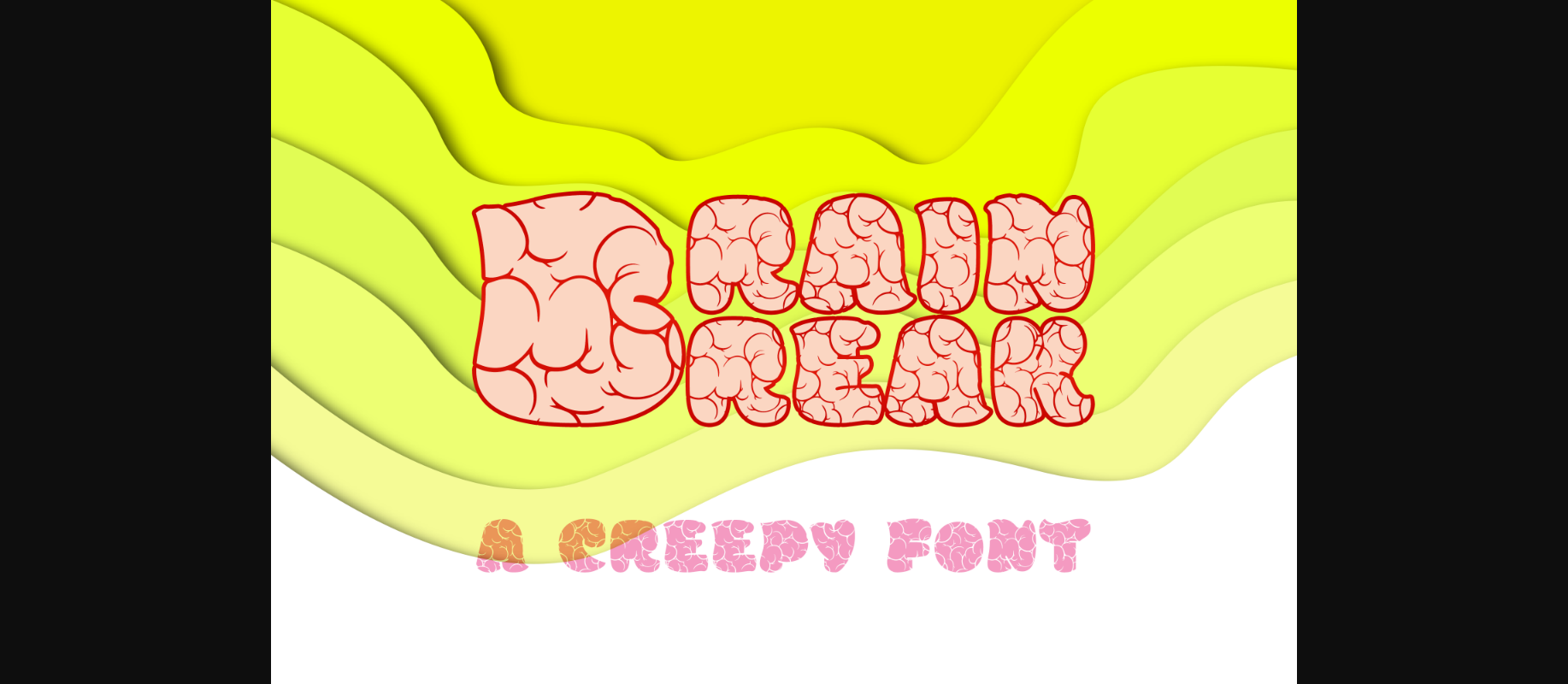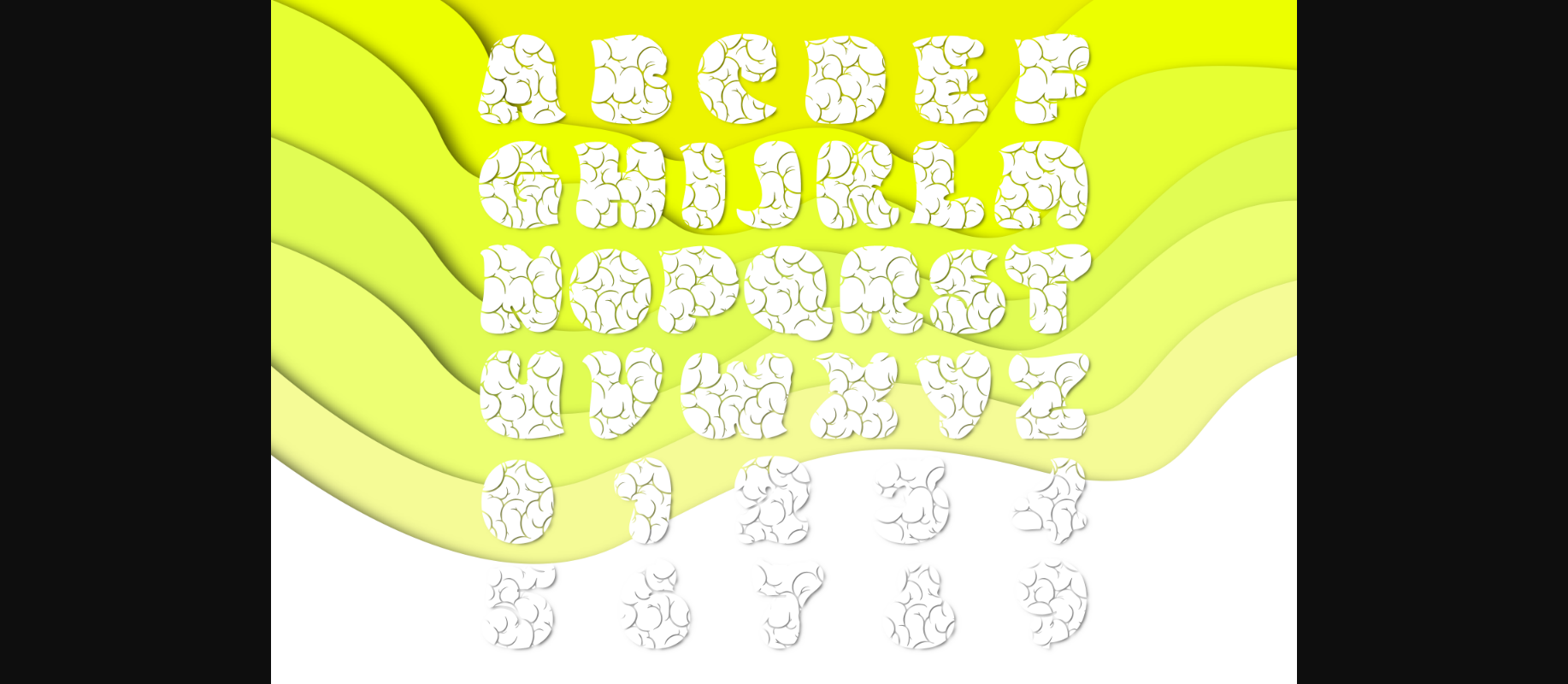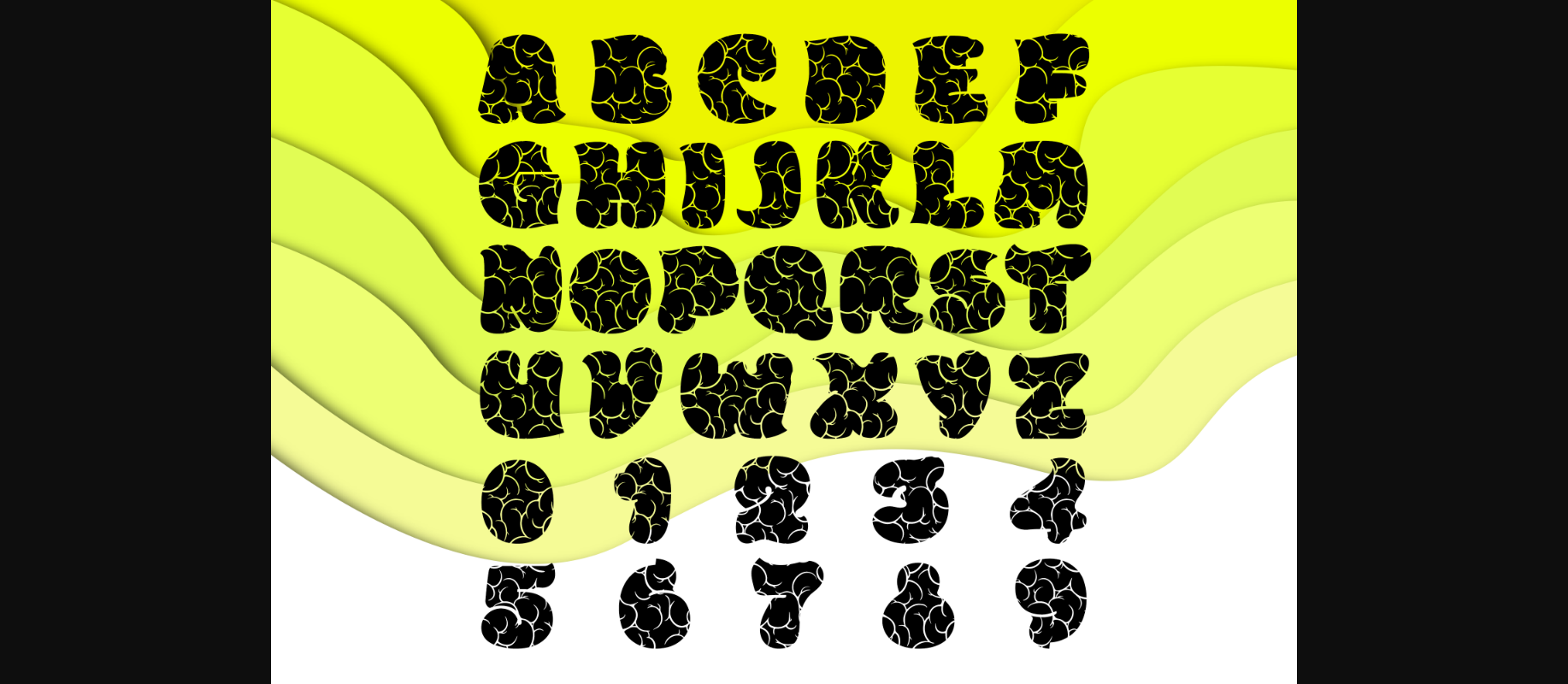
Brain Break Font
About Brain Break Font
Brain Break is an incredibly cool and spooky decorative font. Add it to each of your Halloween designs, and they will instantly stand out.